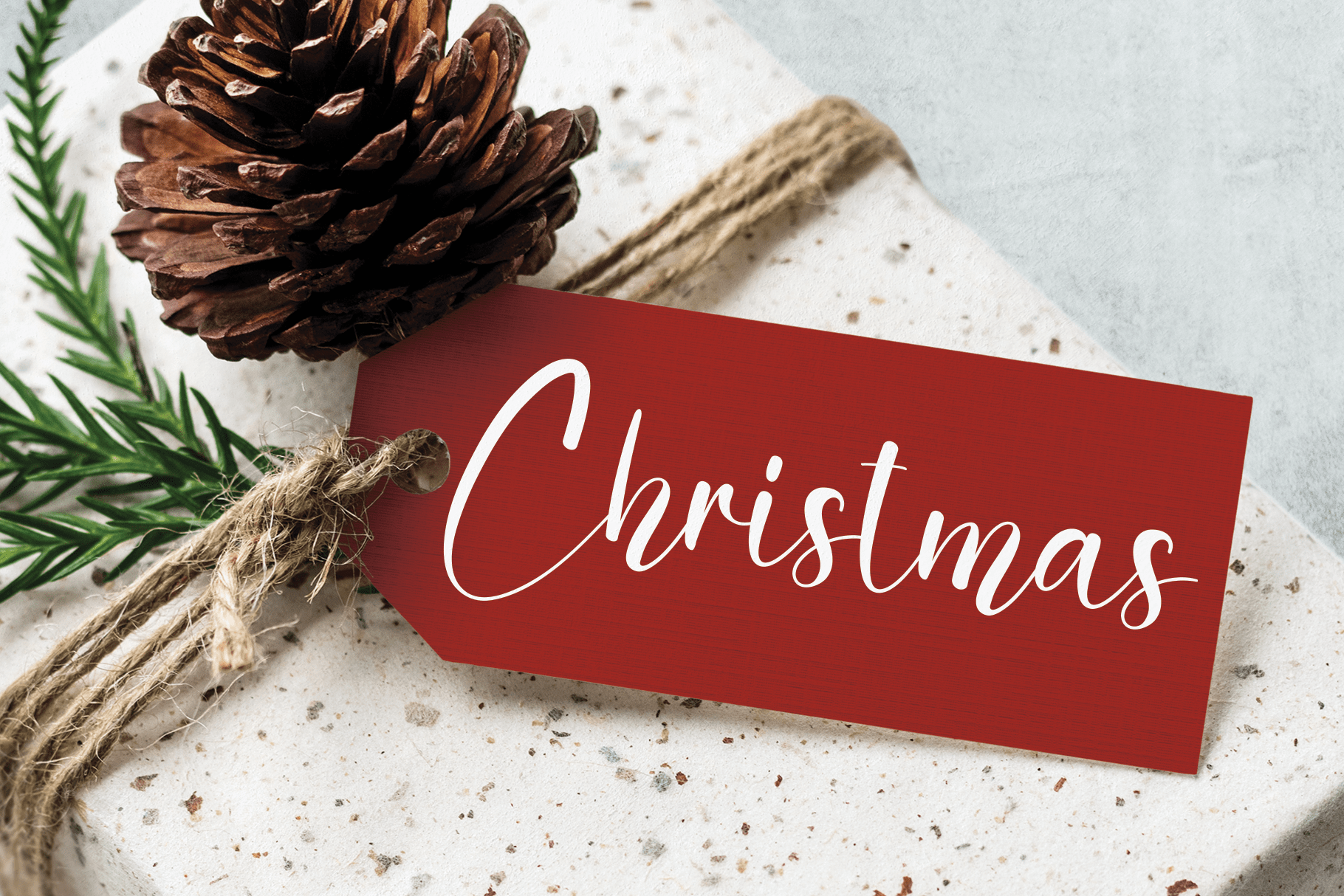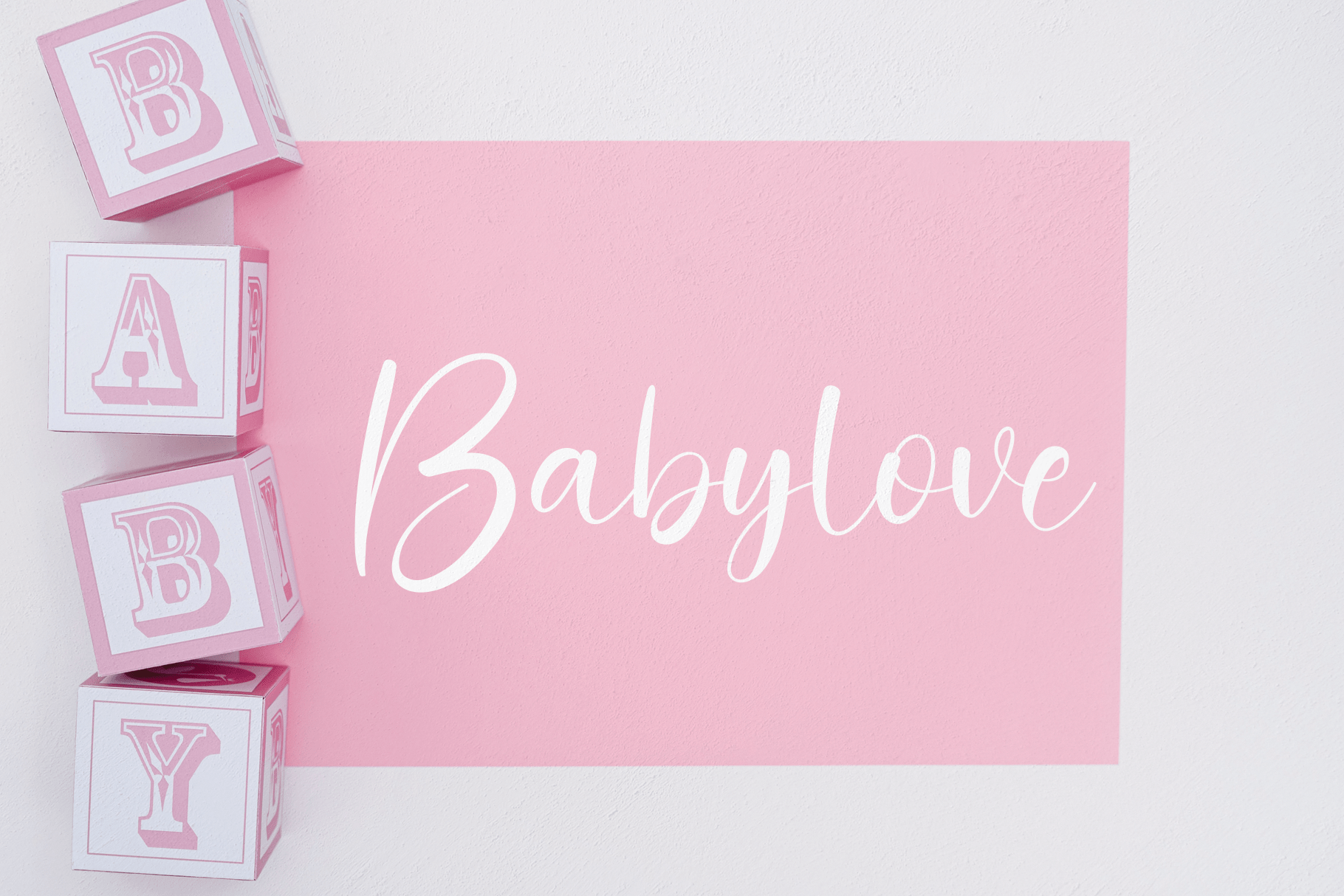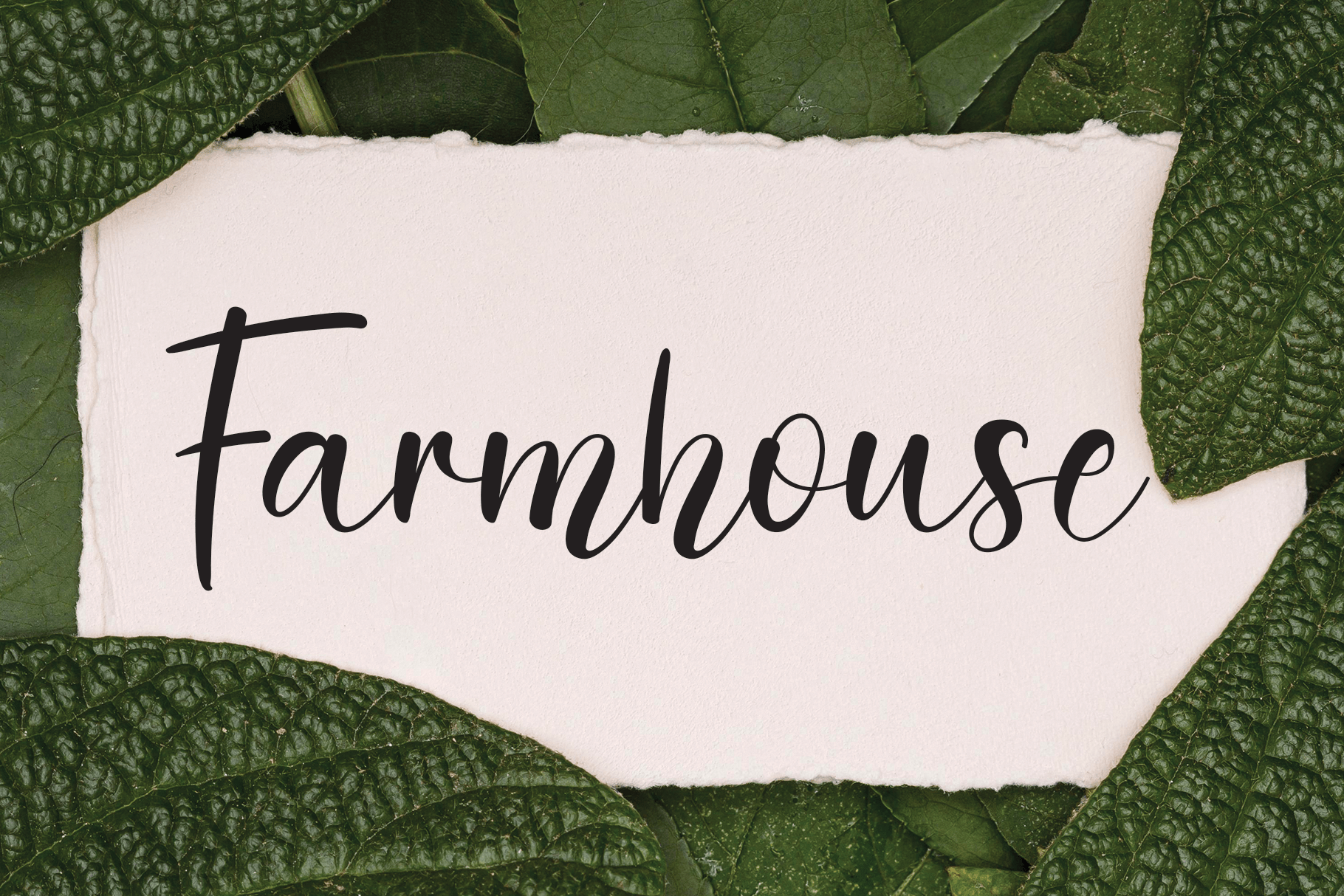
Handmade Typeface
Handmade Script Font
This is a magical script font carefully created with a touch of elegance. Whether you’re looking for fonts for Instagram or calligraphy scripts for DIY projects, this font will turn any creative idea into a true piece of art!
the latest style letters are perfect for wall displays, wedding invitations, social media post logos, advertisements, product packaging, product designs, labels, photography, watermarks, invitations, stationery, and any project that requires taste handwriting.